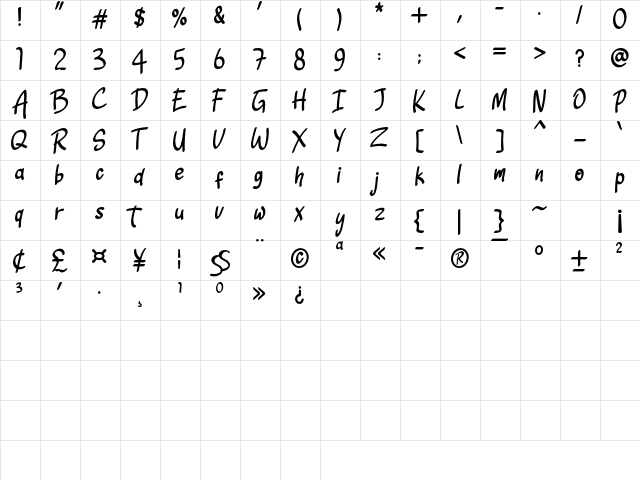
Sketchies Regular
Regular ·  Sudarman ·
DesignerSudarman
Design Context for Sketchies Typeface
Sketchies is a composed and adaptable typeface that performs quietly and consistently across a wide range of design contexts.